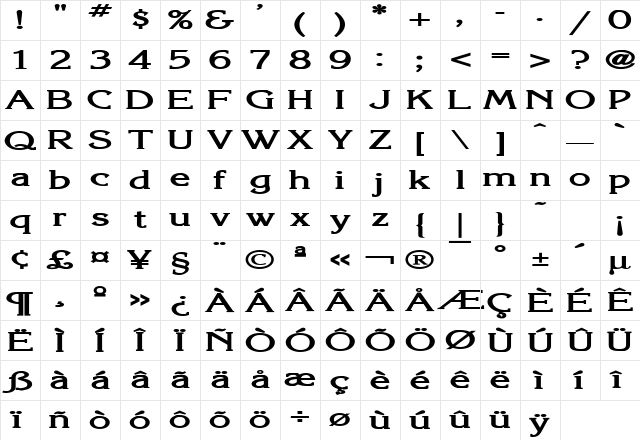
Complete Keira Extended Bold glyph index. Displaying only characters natively supported by Keira Extended Bold font.
Keira Extended is a composed and adaptable typeface that performs quietly and consistently across a wide range of design contexts. Its bold stroke weight gives it real presence on the page.